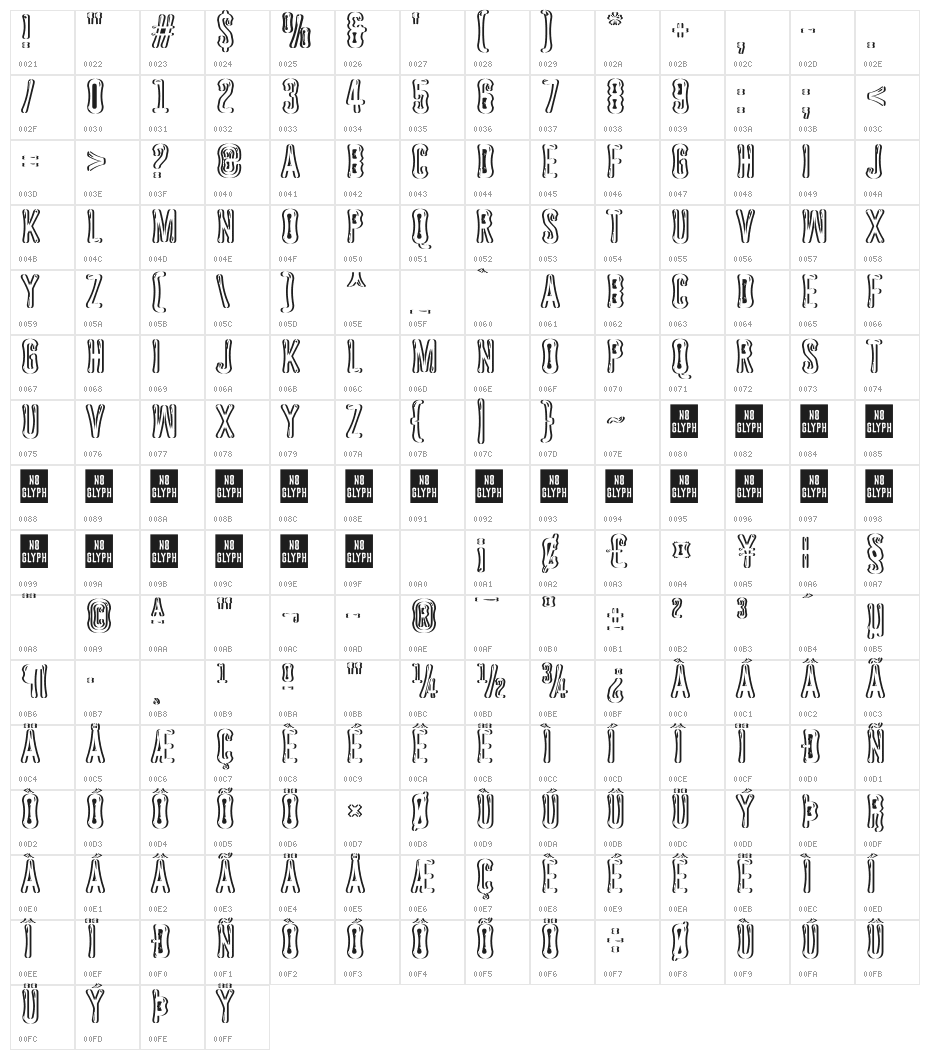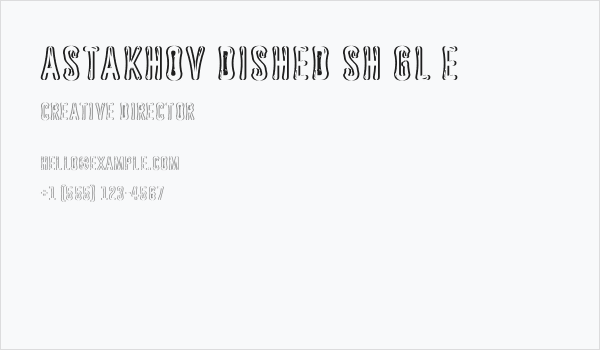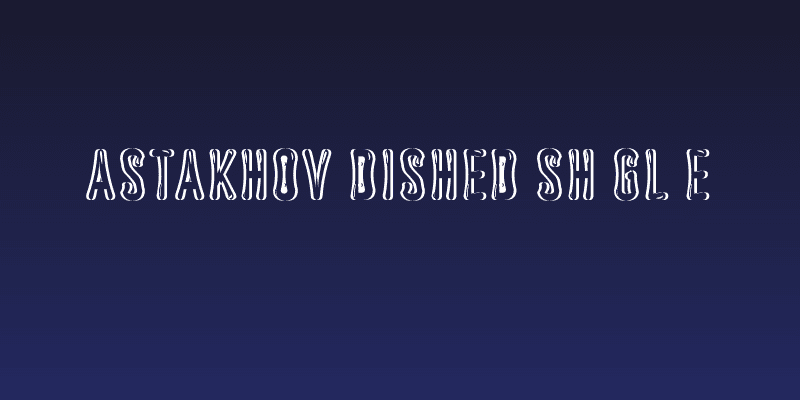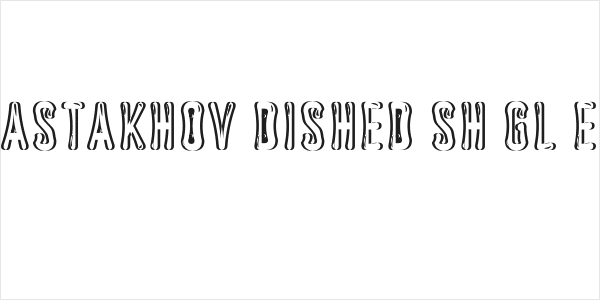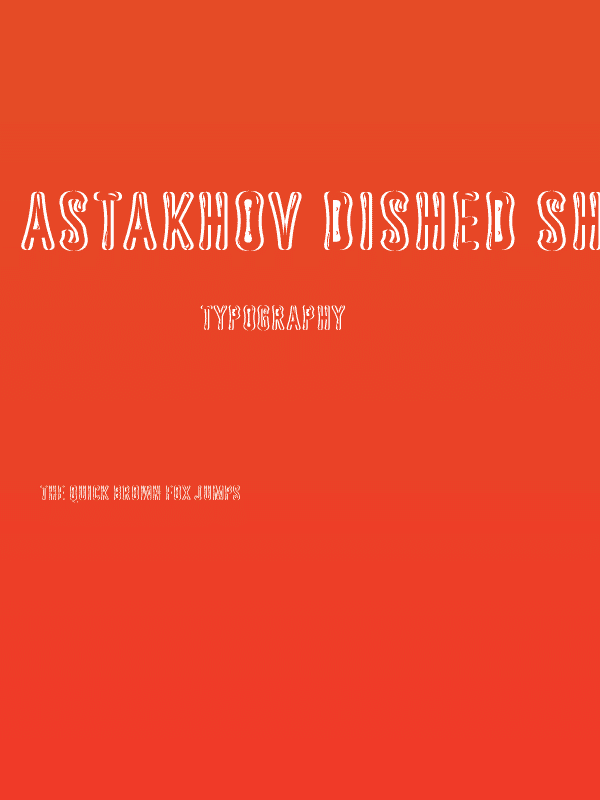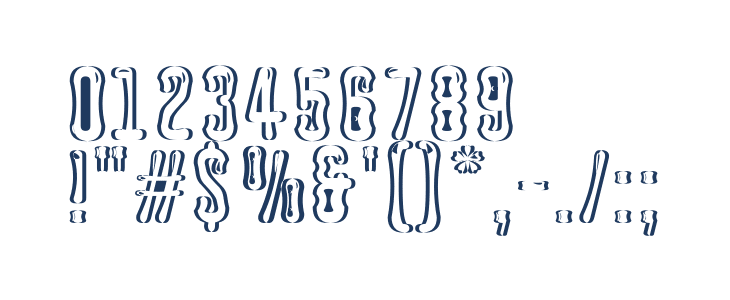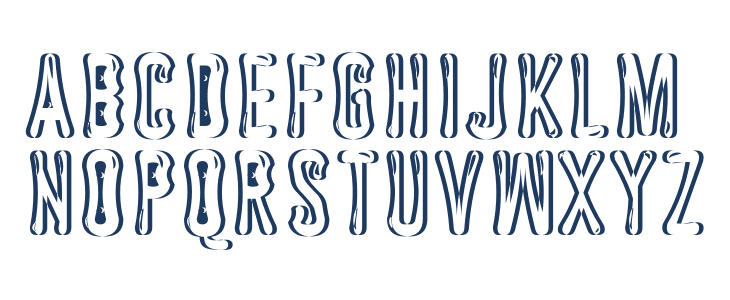
Astakhov Dished Sh Gl E Font
Astakhov Dished Sh Gl E Description
This font features a bold and decorative style with a unique shadow effect that gives each character a three-dimensional appearance. The letters are uppercase and lowercase, with numerals and a variety of special characters. The design incorporates a playful yet sophisticated aesthetic, making it suitable for eye-catching displays. The strokes are thick, with a medium contrast between the thick and thin parts, adding to its dynamic look. The overall style is modern and artistic, perfect for creative projects.
| Proposed Projects | Ideal for posters, headlines, branding, and artistic projects that require a striking visual impact. |